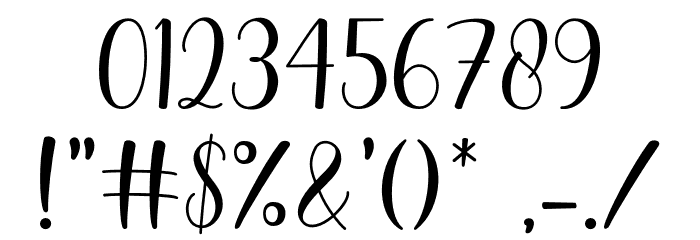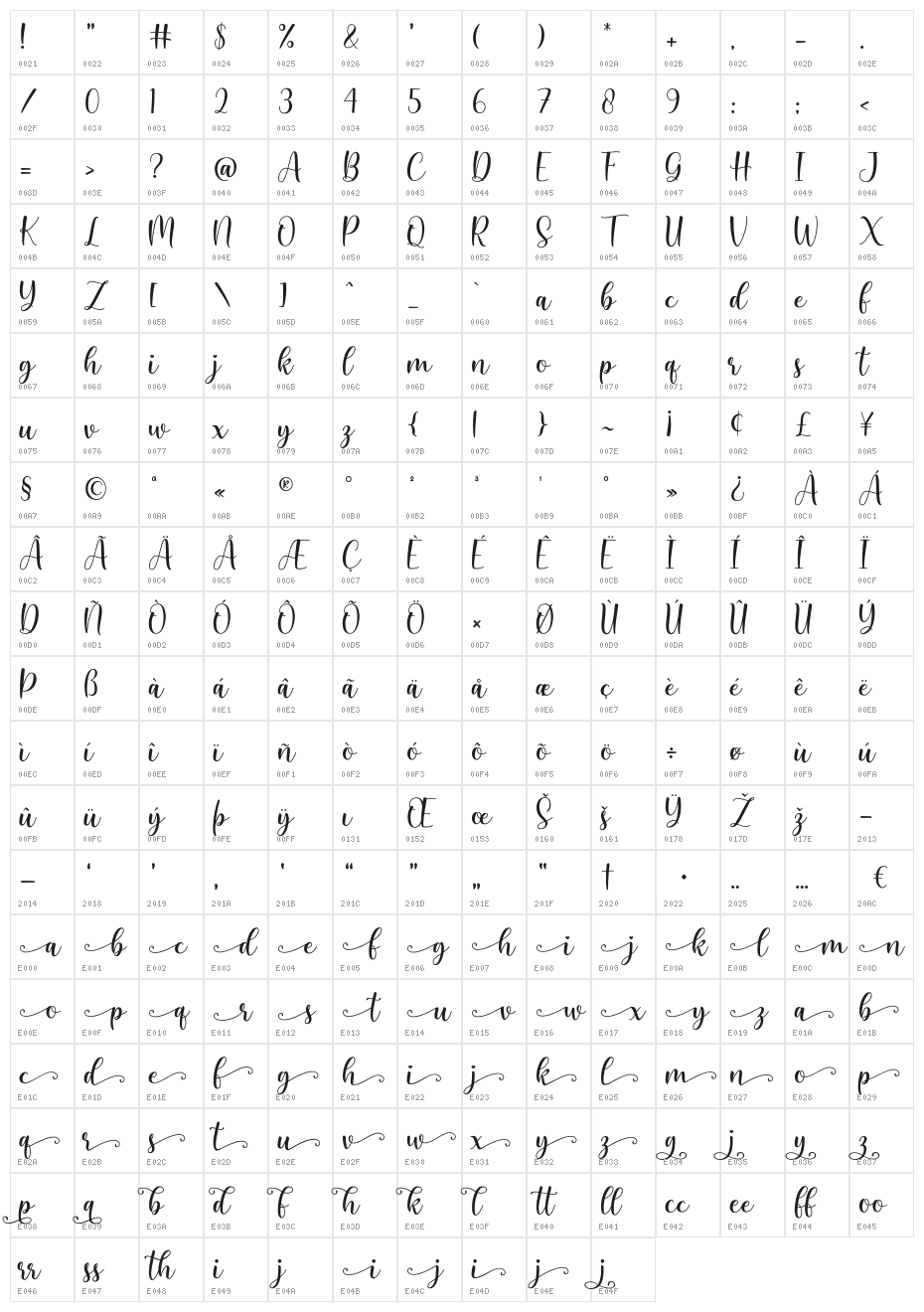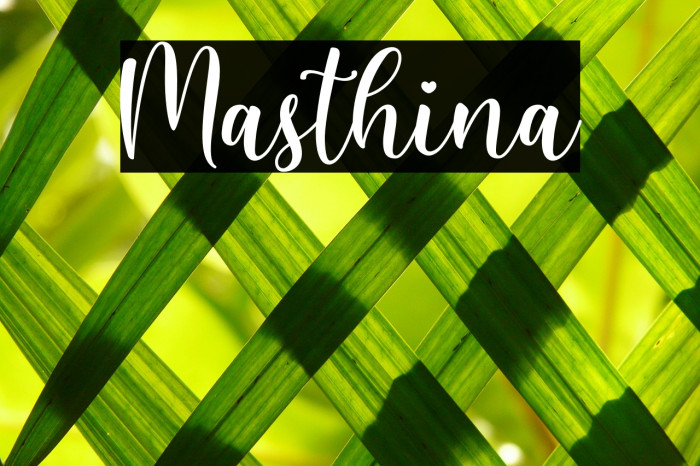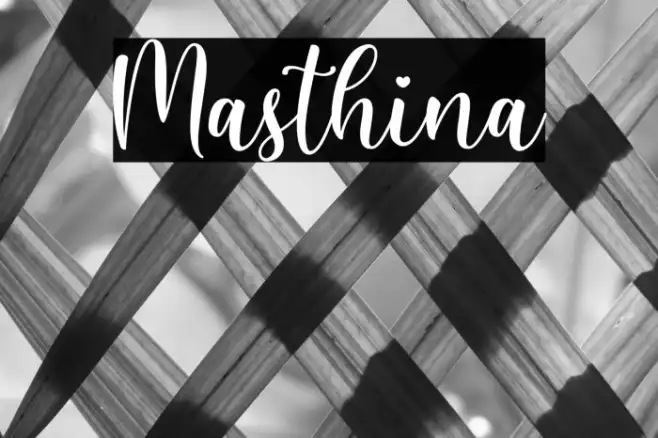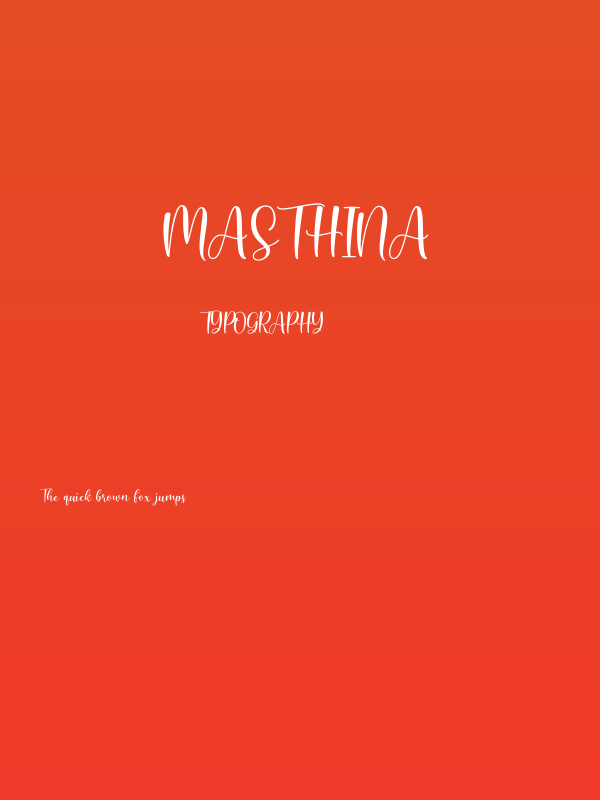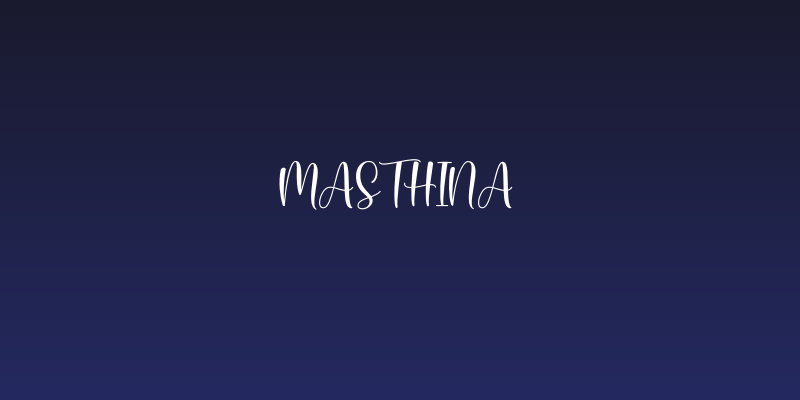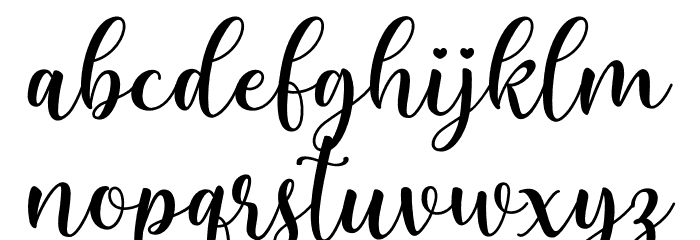
Masthina Font
Masthina Description
This font features a flowing, cursive style with elegant loops and swashes, giving it a handwritten appearance. The uppercase letters are bold and expressive, while the lowercase letters maintain a consistent, smooth flow. The numerals are distinct and easy to read, complementing the overall style. Special characters are creatively integrated, maintaining the font's artistic flair. The design is both sophisticated and playful, making it suitable for a variety of creative applications.